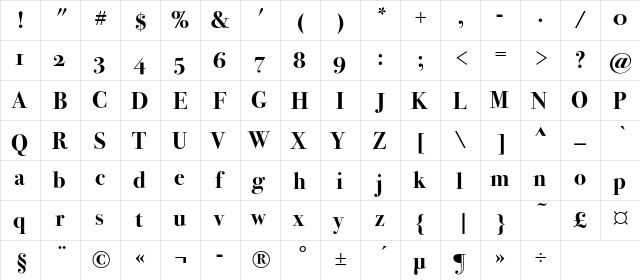
Bodoni72OSC Bold
Design Context for Bodoni72OSC Typeface
Bodoni72OSC offers clean, dependable letterforms without strong stylistic allegiance, making it a practical choice for designers who need flexibility. Its bold stroke weight gives it real presence on the page.